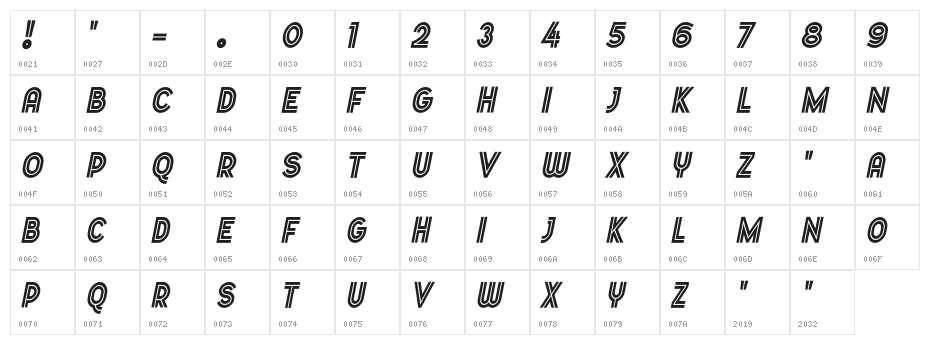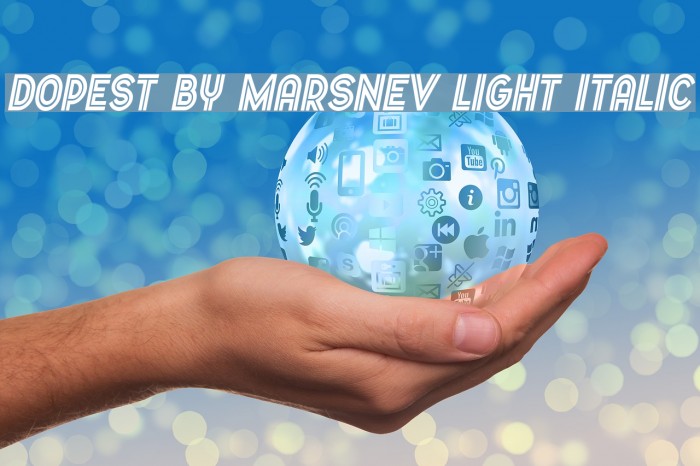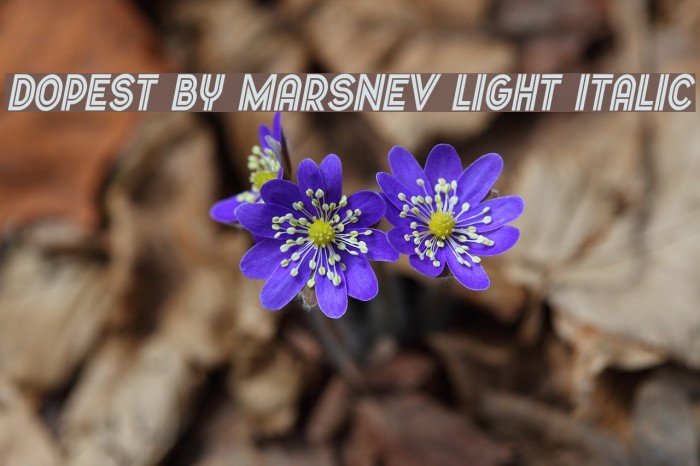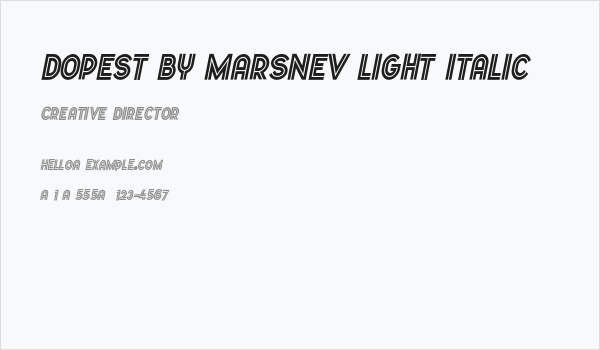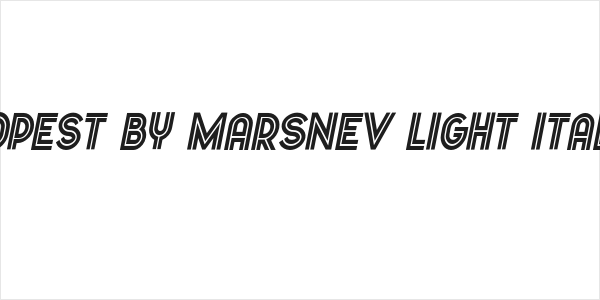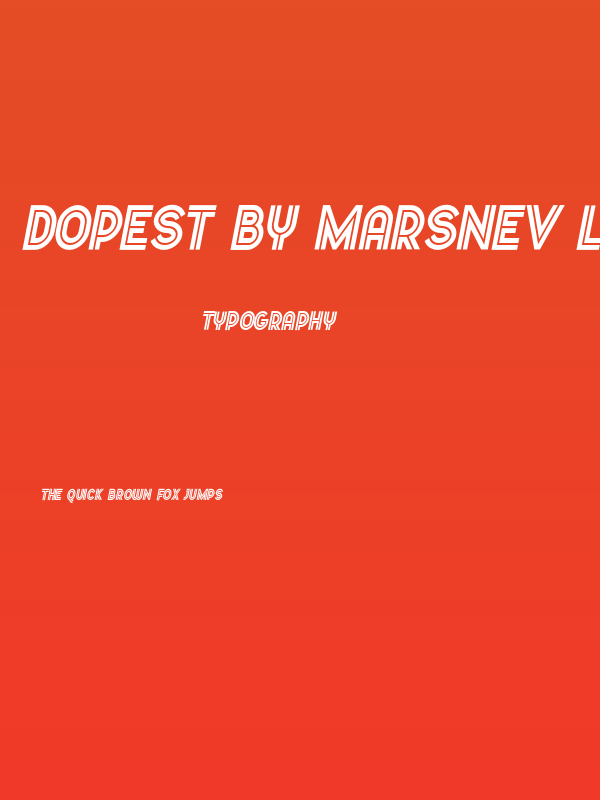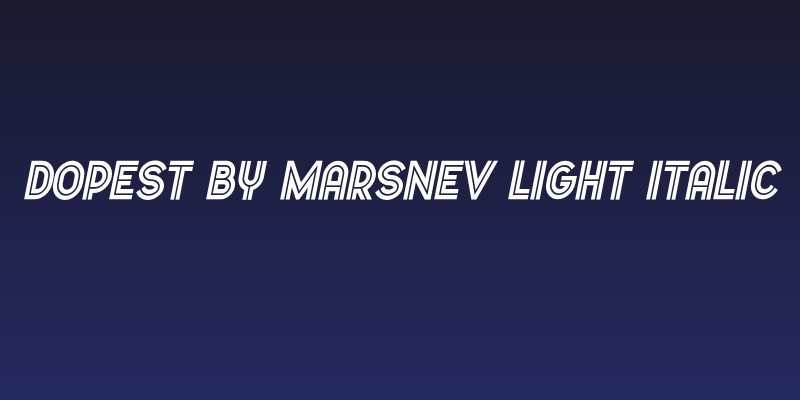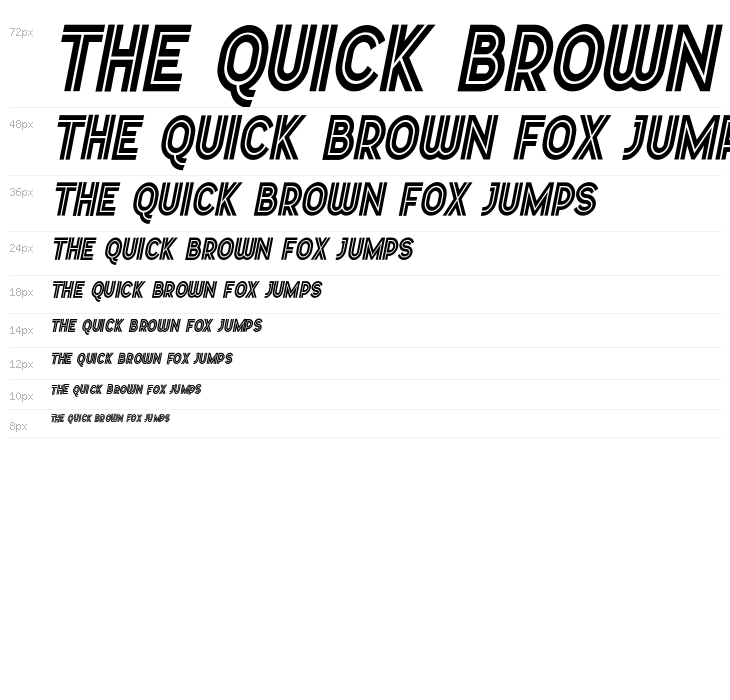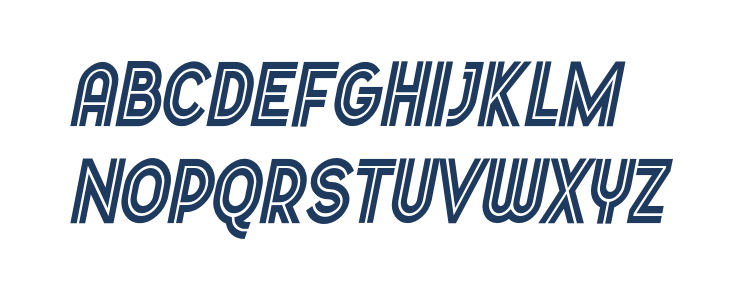
Dopest by MARSNEV light italic Font
Dopest by MARSNEV light italic Description
This font features a bold, modern design with a distinct double-line style that creates a sense of depth and movement. The uppercase and lowercase letters maintain a consistent geometric structure, with sharp angles and clean lines. The numbers follow the same aesthetic, ensuring uniformity across all characters. The special characters are designed to complement the overall style, making them suitable for various design contexts. The font's unique appearance makes it ideal for eye-catching headlines and branding projects.